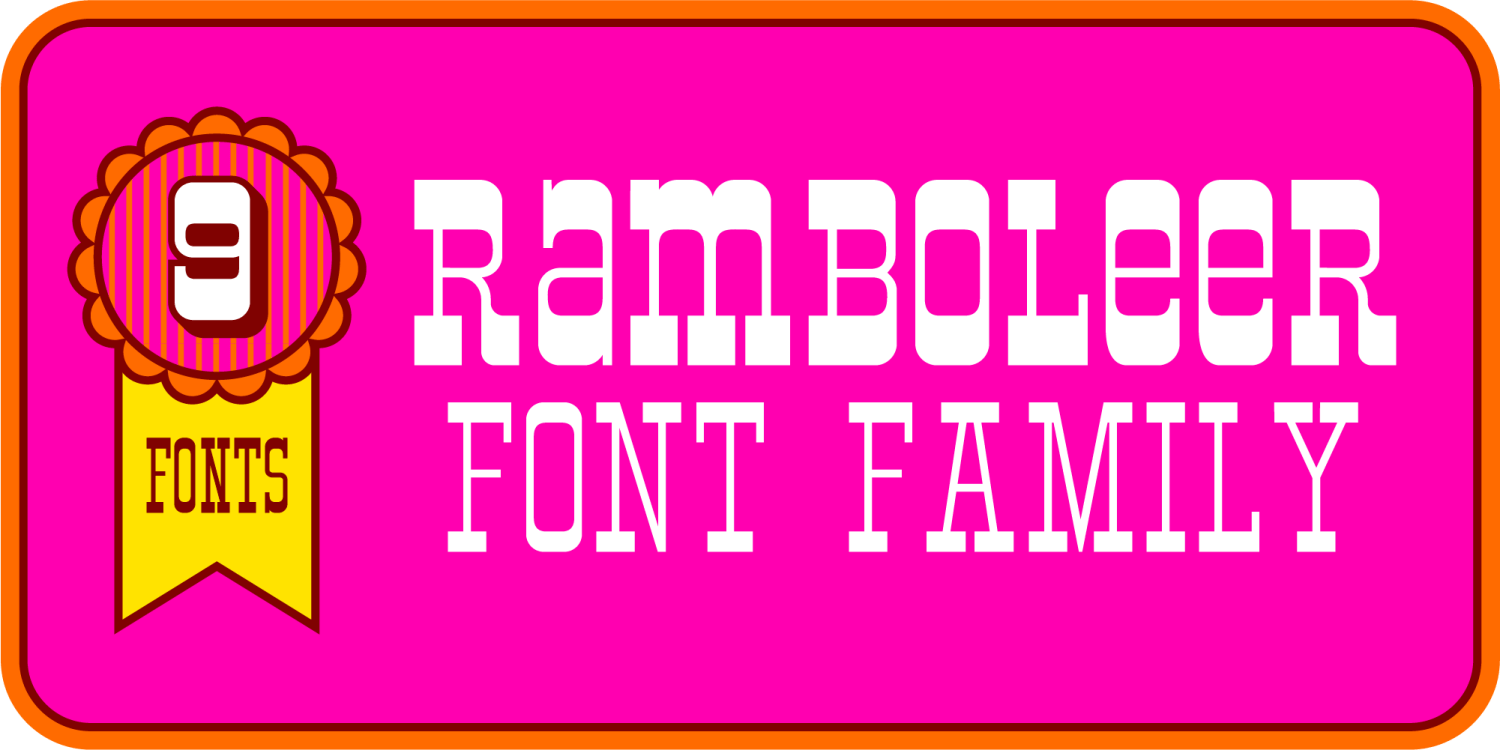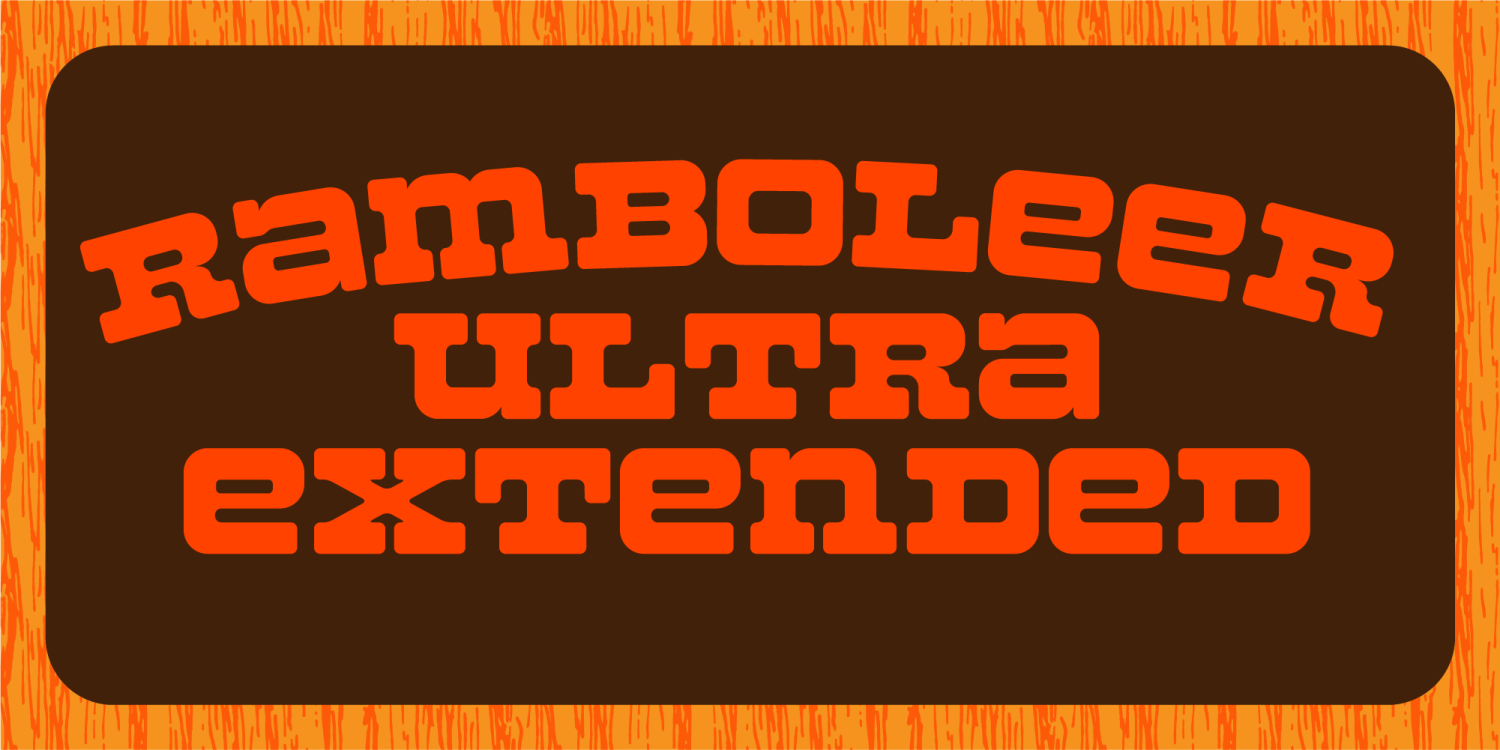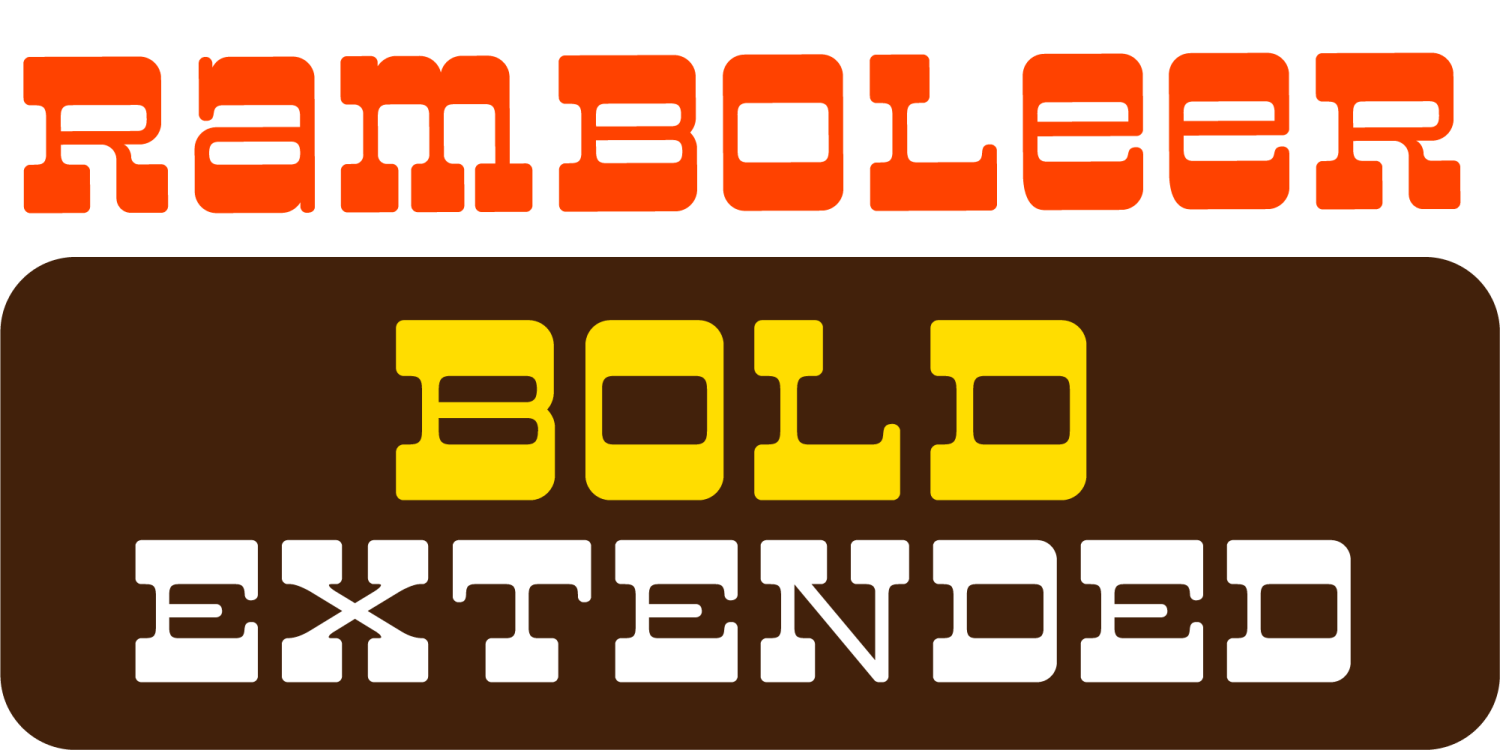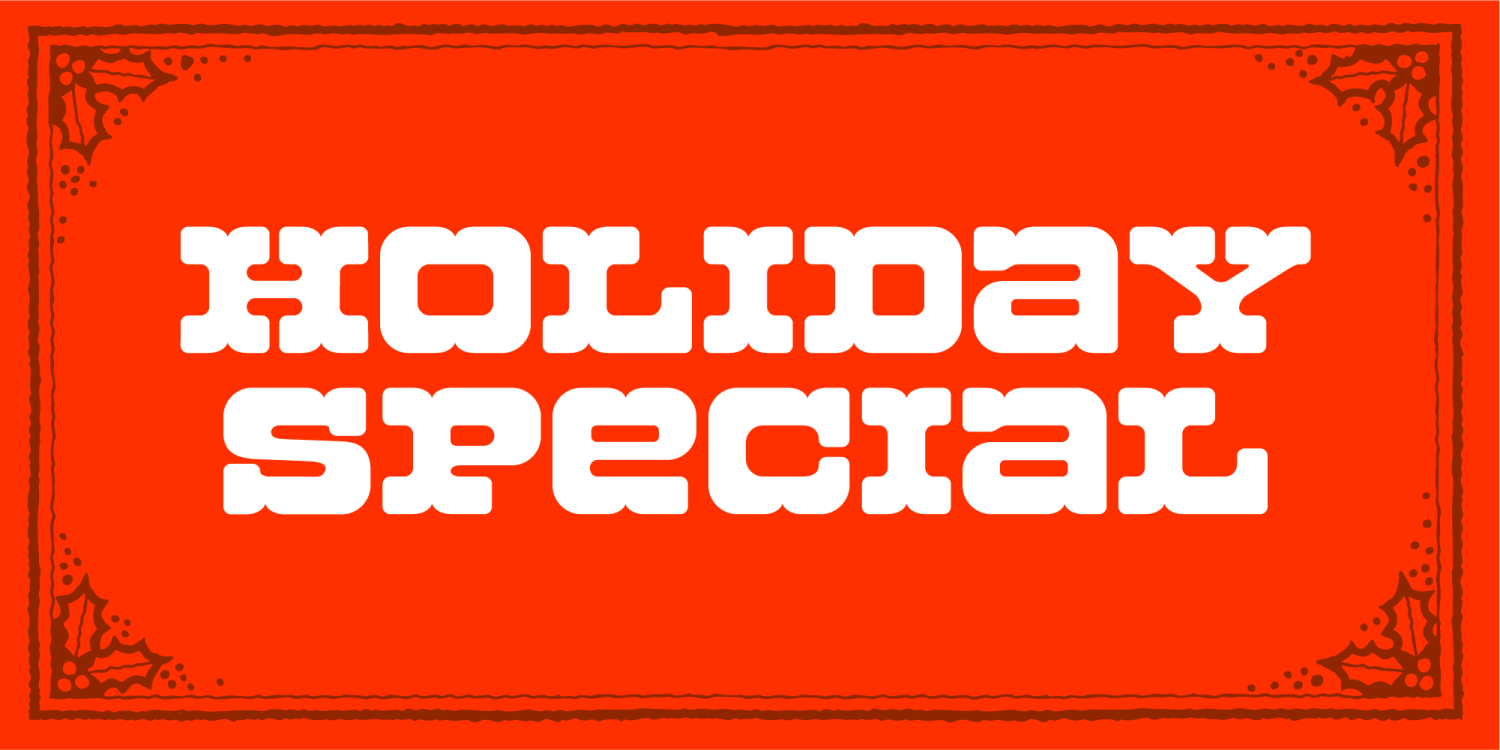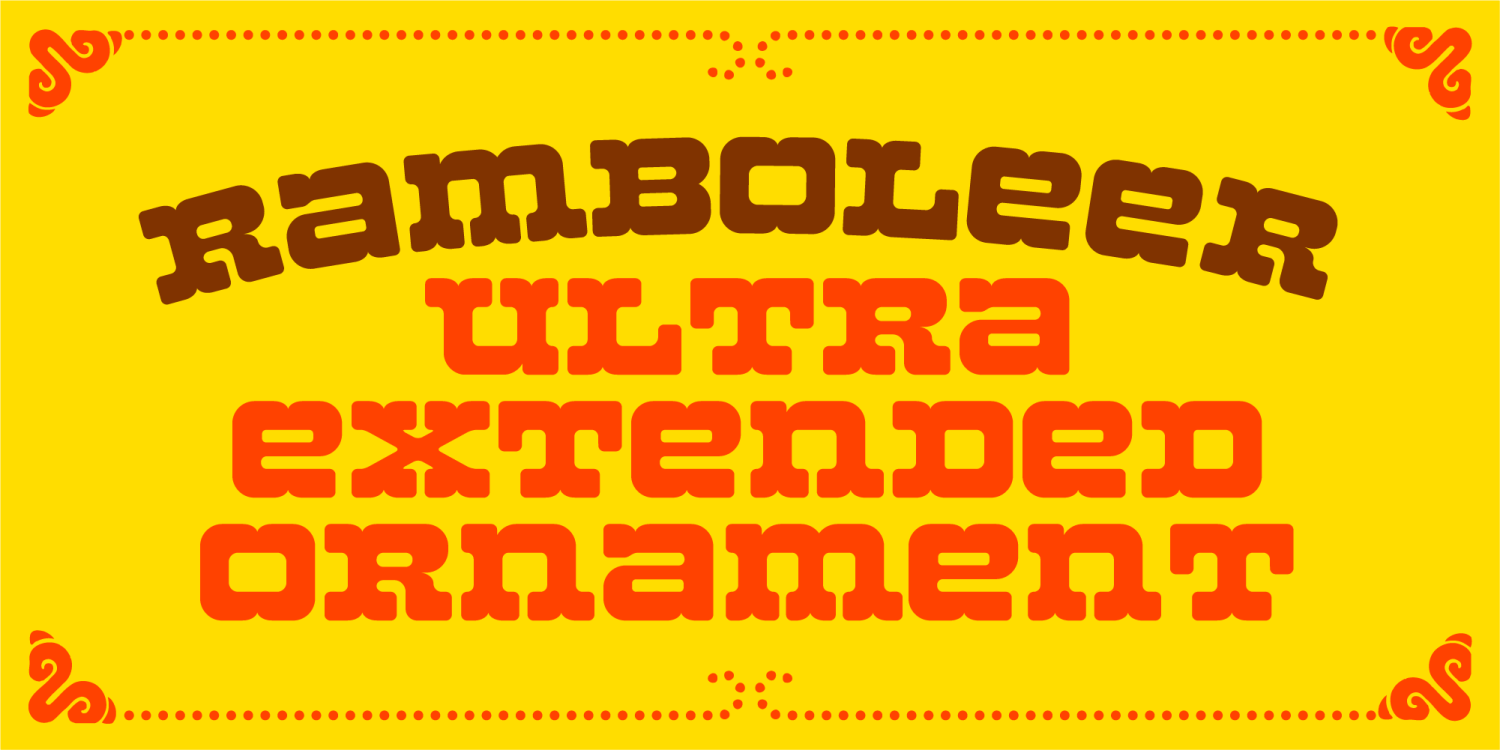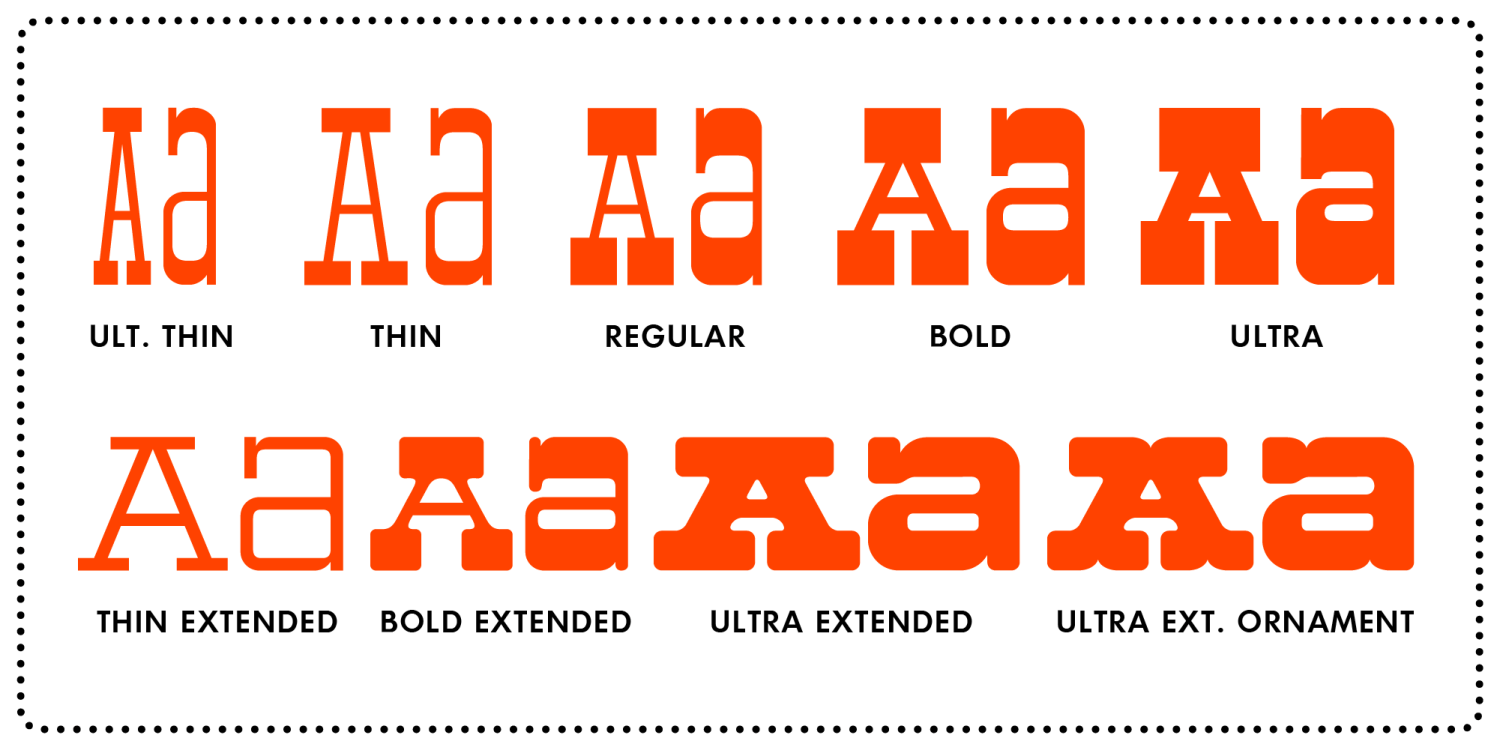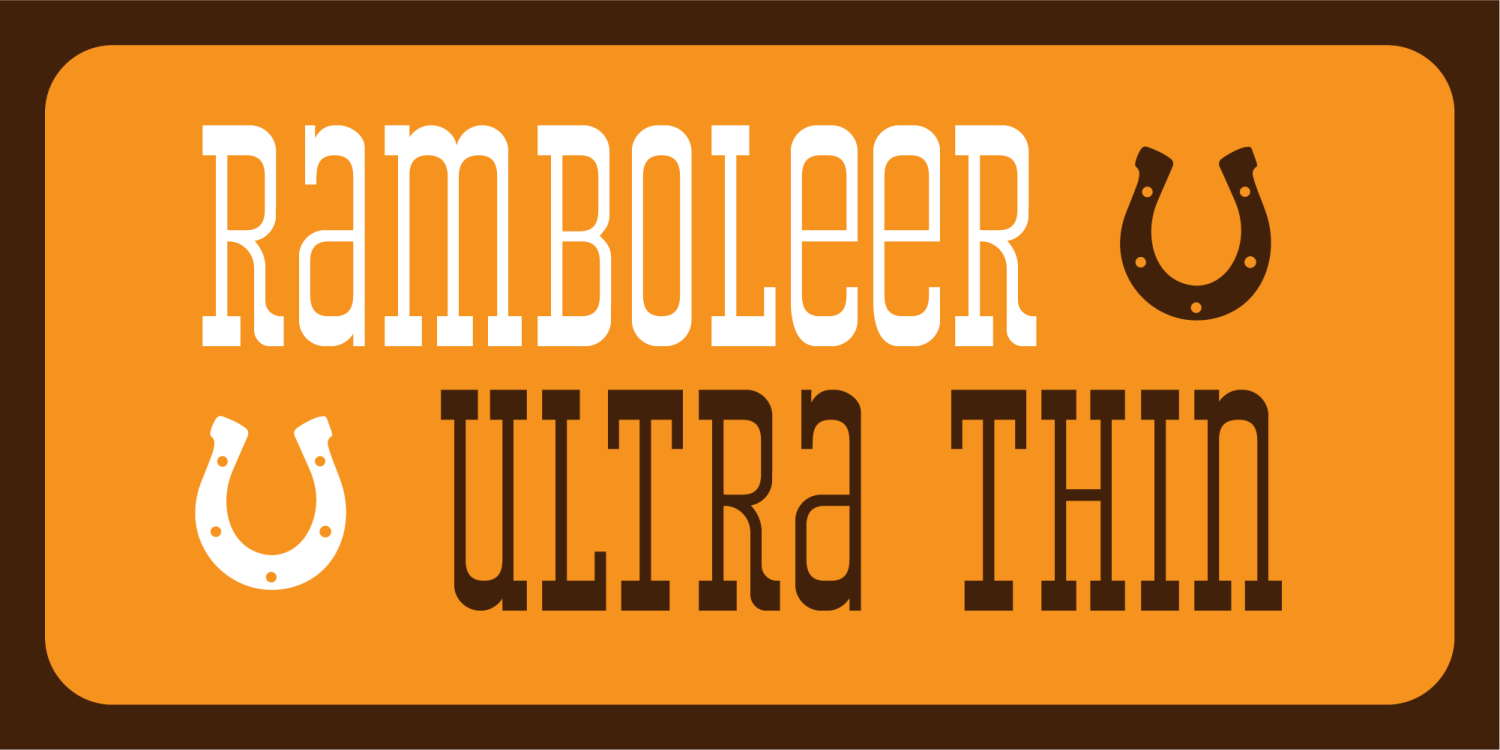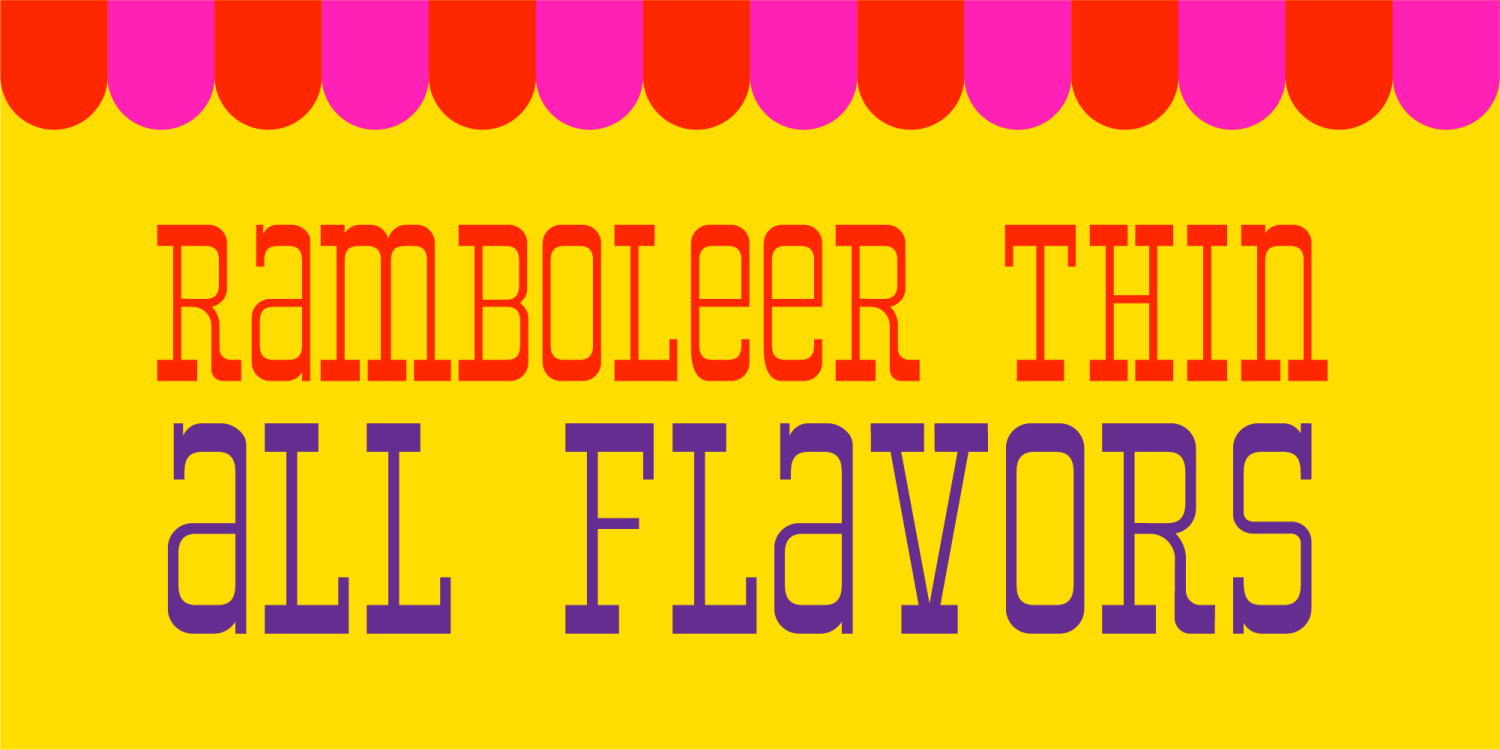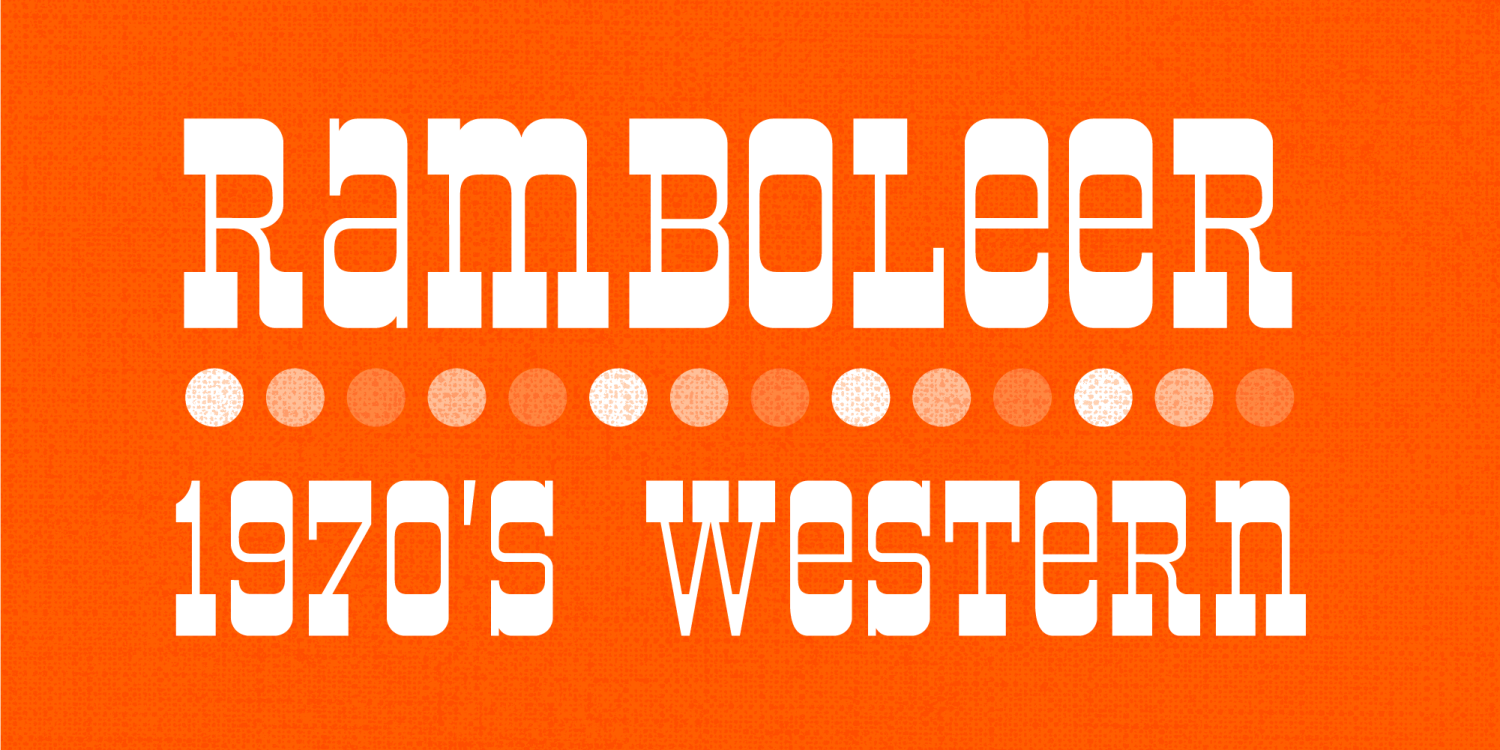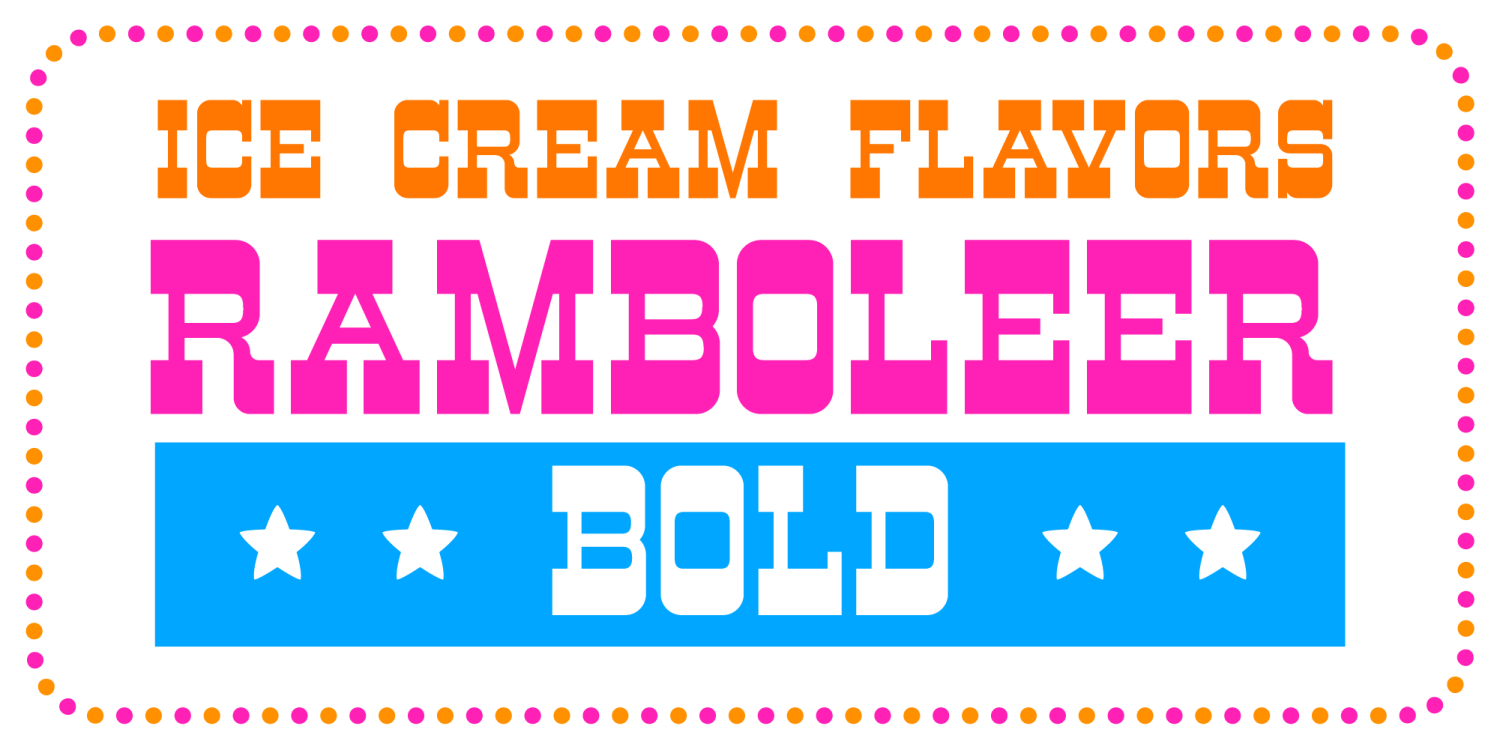
Ramboleer
Font Family by Fontalicious
Step into the groovy saloons of typography with Ramboleer, the wild and woolly 1970s Western font that's as bold as a tumbleweed in a dust storm! Each letter slingshots across the page with a swagger that'd make a cowboy jealous, capturing the spirit of the disco desert with every stroke. Saddle up your designs and ride into the sunset of style with Ramboleer – where the Old West meets the funky freshness of the '70s!
9 Fonts Included
Ramboleer Ultra Thin
Ramboleer Thin
Ramboleer Regular
Ramboleer Bold
Ramboleer Ultra
Ramboleer Thin Extended
Ramboleer Bold Extended
Ramboleer Ultra Extended
Ramboleer Ultra Extended Ornament